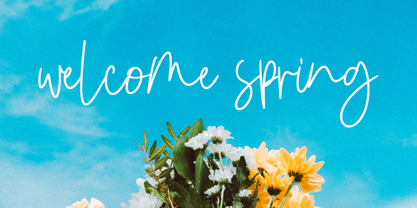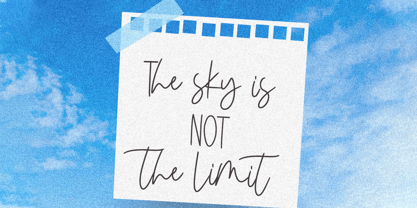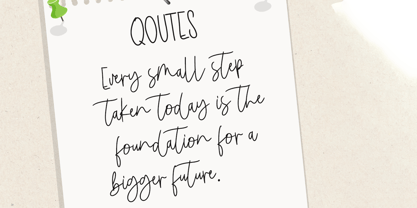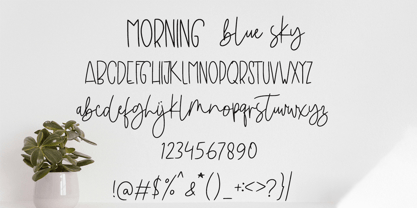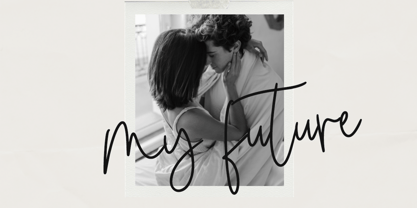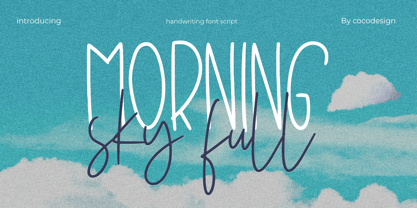
Morning sky full
by Cocodesign
The Morning sky full Font Family was designed by Muhammad Zaini and published by Cocodesign. Morning sky full contains 1 styles.
Introducing "Morning sky full", a delicately thin handwritten font whose beauty lies in its simplicity. Its elegant and streamlined profile can effortlessly uplift any creative project you're working on. Imbued with a touch of versatility, this enchanting typeface is ready to be an invaluable addition to your font collection, offering the potential to beautifully amplify your designs, regardless of the theme. Embrace the charm of the Morning sky full, and allow your creativity to reach new heights.
Designers: Muhammad Zaini
Publisher: Cocodesign
Foundry: Cocodesign
Design Owner: Cocodesign